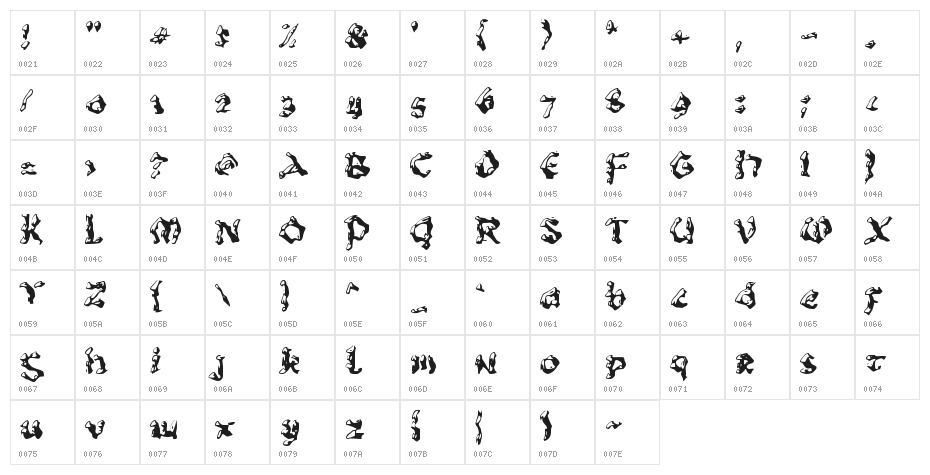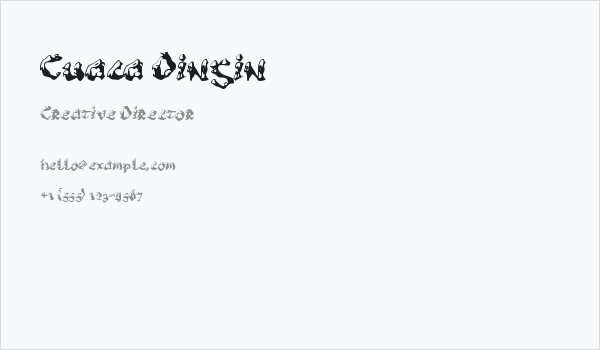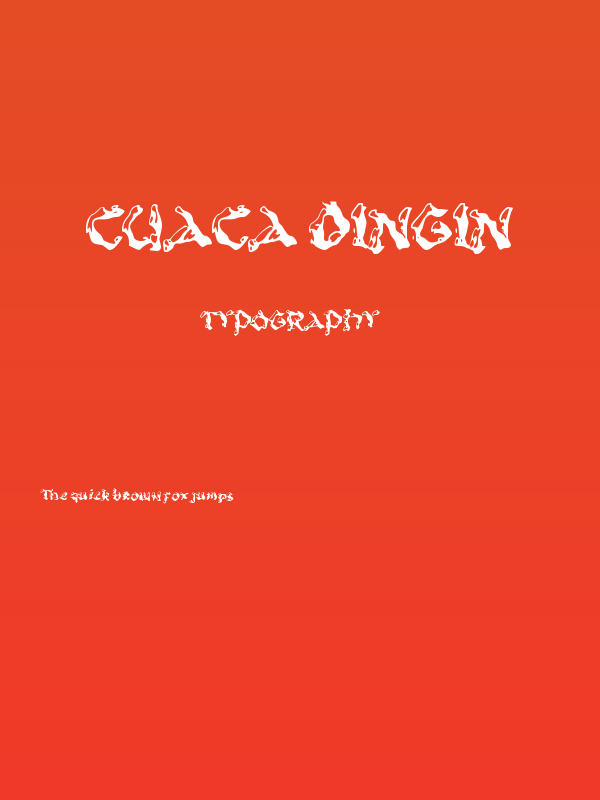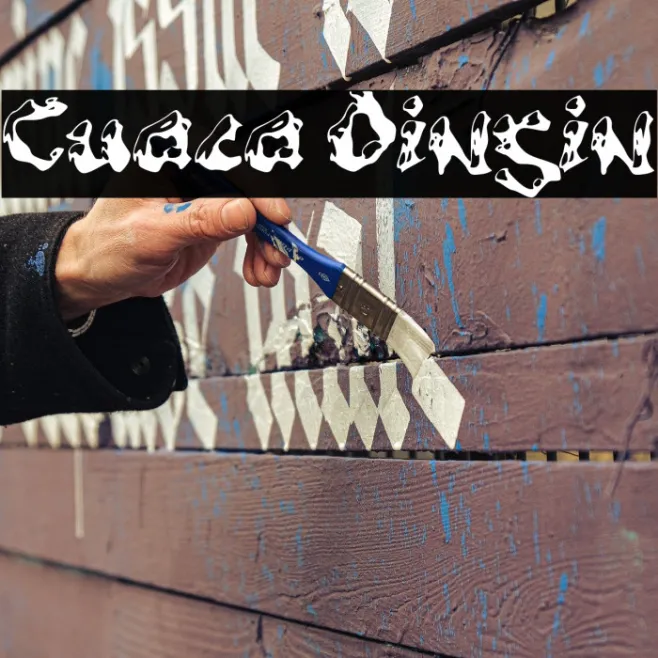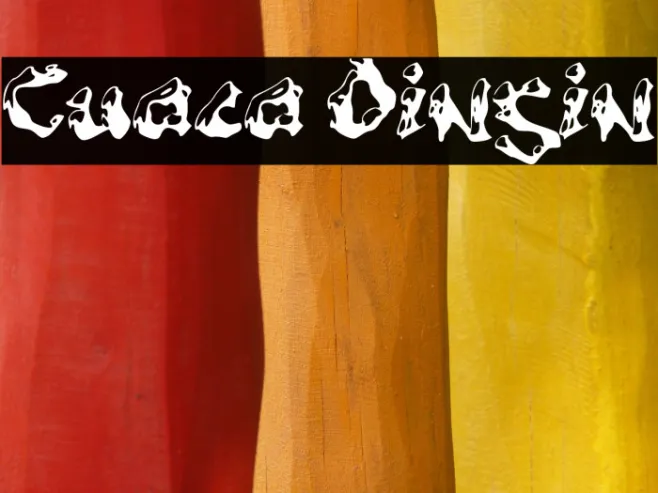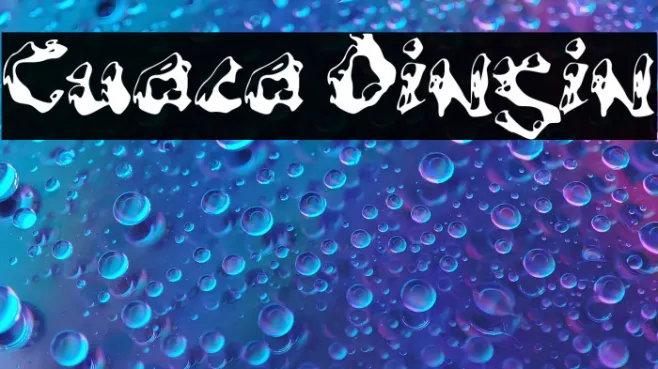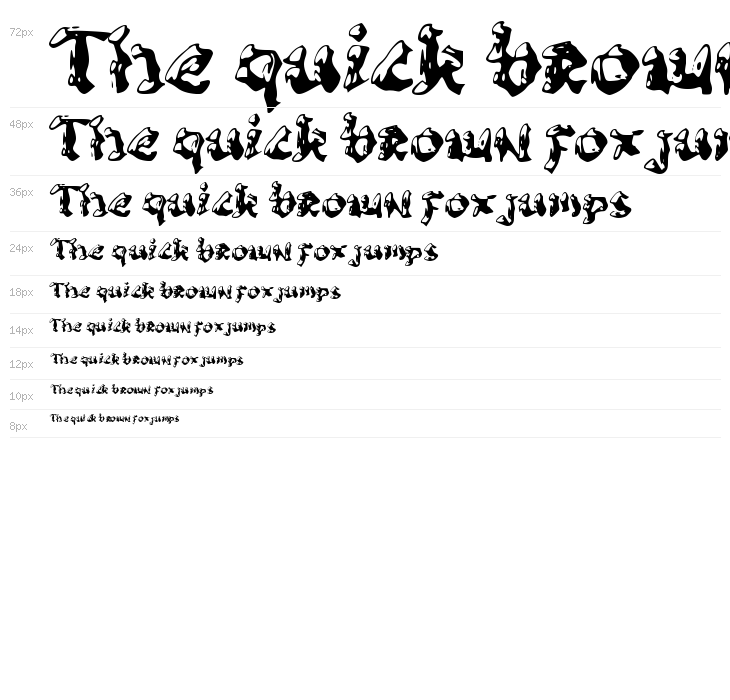
Cuaca Dingin Font
Cuaca Dingin Description
This font features a highly decorative and unique style, reminiscent of melting or dripping elements. Each character is crafted with an irregular, fluid appearance, giving it a dynamic and artistic flair. The uppercase and lowercase letters maintain a consistent theme, with bold, thick strokes that vary in width, creating a sense of movement. The numbers and special characters follow the same design principles, ensuring a cohesive look across all glyphs. This font's distinctiveness makes it stand out, ideal for creative projects that require a touch of whimsy or an unconventional aesthetic.
| Use Case | Logos, Posters, Creative Titles |
| Proposed Projects | Ideal for album covers, posters, Halloween-themed designs, or any project seeking a bold, artistic touch. |